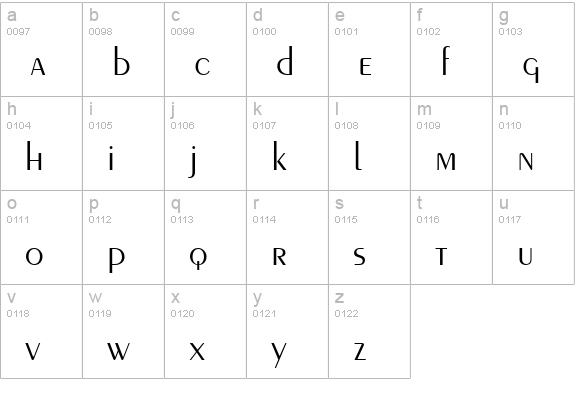
Creme SSi Light Font Details
Creme SSi Light is a refined, elegant variant in the Creme typeface family \xE2\x80\x94 well suited to elegant body text, refined sub-headings, and luxury branding.
Creme SSi Light is a sleek and elegant font that exudes sophistication and style. With its clean lines and modern design, this typeface is perfect for a wide range of design projects, from branding to editorial layouts. The light weight of the font adds a delicate touch, making it ideal for creating a refined and polished look. What sets Creme SSi Light apart is that it is available for free download at FontsMarket.com. This means that you can easily access this high-quality font without any cost, making it a valuable addition to your font library. Whether you're a professional designer or a hobbyist looking to enhance your projects, Creme SSi Light offers versatility and beauty in equal measure. Elevate your designs with this free font and make a lasting impression with its timeless appeal.